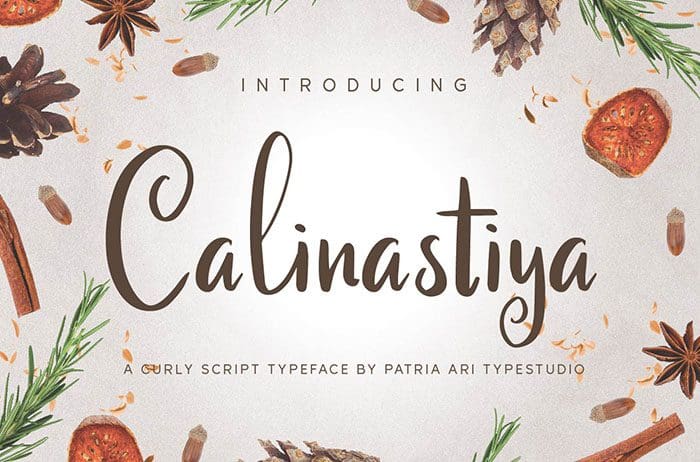
Calinastiya is a curly playful Display Font with some beautiful cursive glyphs. It is perfect for branding projects, logo, book cover, label, and any projects that you work on. Thanks to Patria Ari Typestudio for sharing this font! Take a look at this portfolio for more of his stunning fonts.